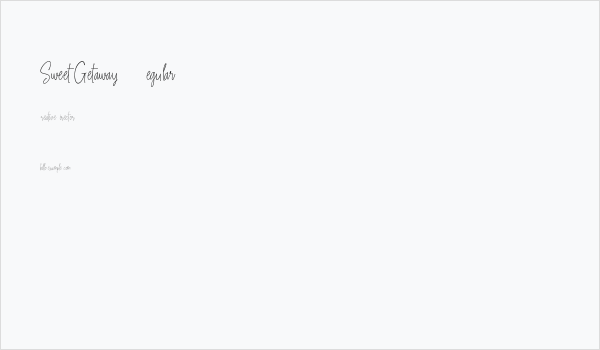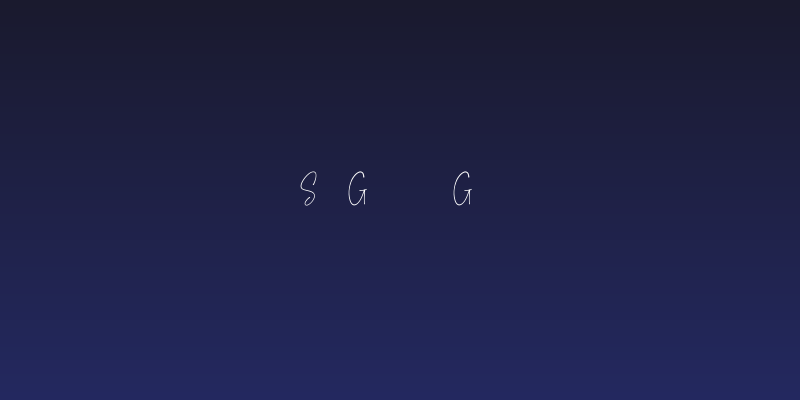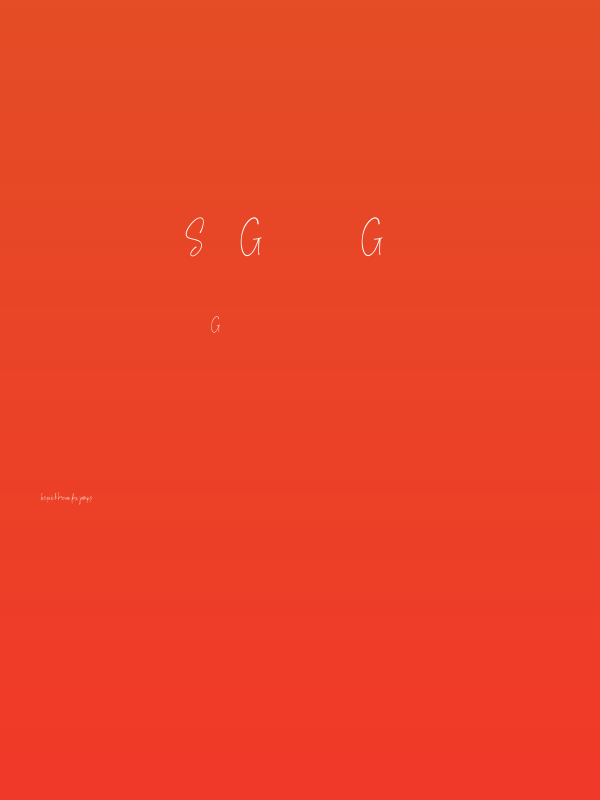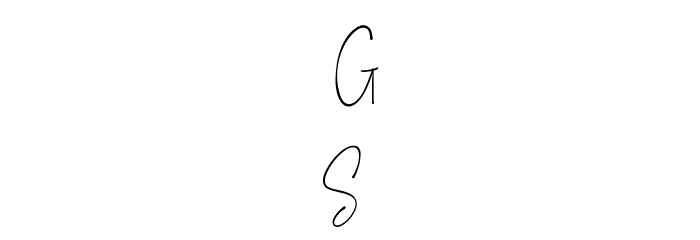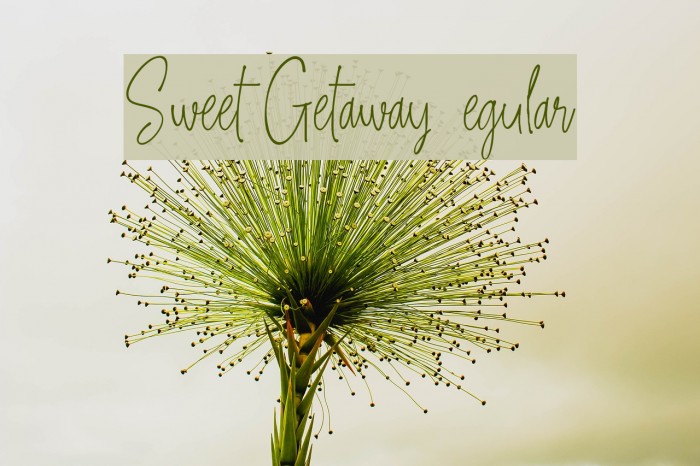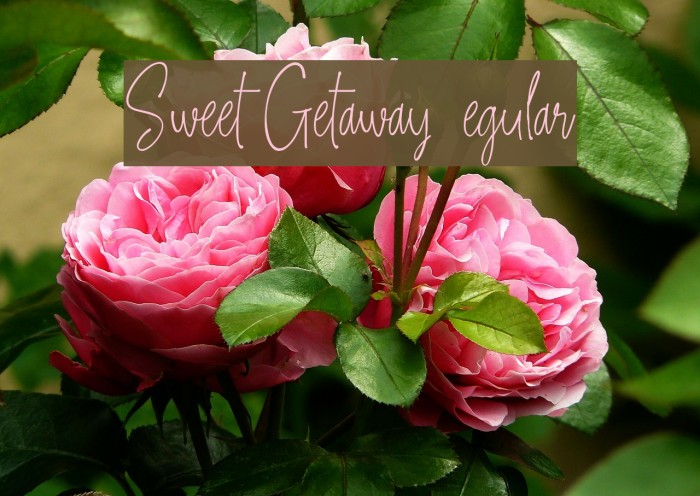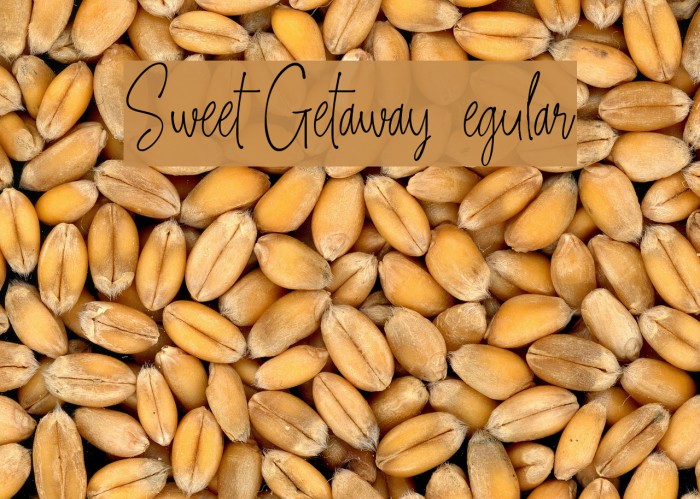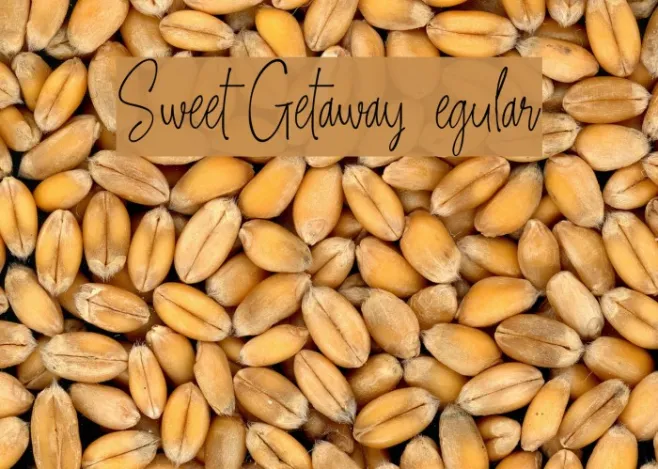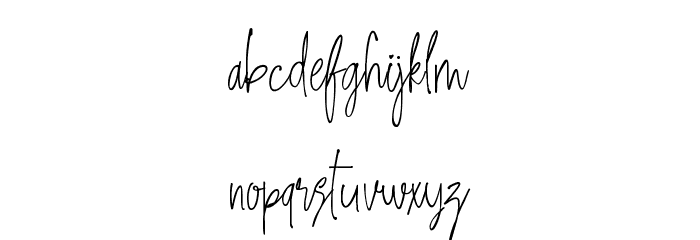
Sweet Getaway DEMO Regular Font
Sweet Getaway DEMO Regular Description
This font features a delicate and elegant handwritten style, characterized by its fluid and natural strokes. The uppercase letters are tall and graceful, while the lowercase letters maintain a consistent flow with subtle variations in height and slant. The font exudes a sense of sophistication and charm, making it ideal for projects that require a personal touch. Its overall appearance is both stylish and approachable, with a modern twist on classic calligraphy. The characters are well-spaced, ensuring readability while maintaining an artistic flair.
| Use Case | Logos, Invitations, Personal Branding |
| Proposed Projects | Ideal for wedding invitations, greeting cards, personal branding, and elegant packaging design. |